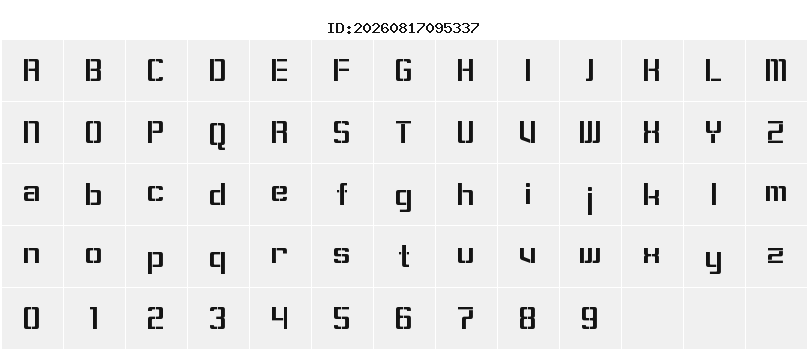
Sorenson Preview
• Font Name: Sorenson
• Designer: Neale Davidson
About Sorenson.ttf
Sorenson.ttf is a modern, elegant sans-serif font designed for ultimate readability and visual harmony. Perfect for branding, headlines, web design, and print materials.